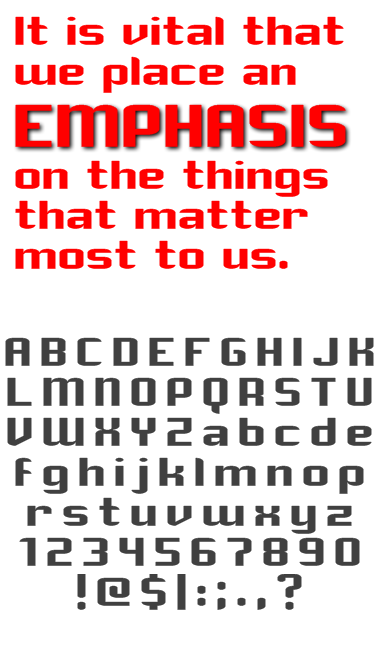
Emphasis
aphoria
Sans Serif
It's a mutual admiration society! I was going to vote it 8 but then I looked at the pixel preview. Such an elegant face on so economical a grid is quite an achievement.
intaglio
I was experimenting with scaling and this ended up at 2:1 (h:v). I thought it turned out pretty well.
aphoria
I was trying to make a font like this, but it stunk because I'm a total noob, LOL.
Thanks for giving me what I wanted, and doing the design far better than I ever could have!
hinachan
Thanks hinachan. I've made plenty of stinkers myself...I just don't release the
really
bad ones.
aphoria